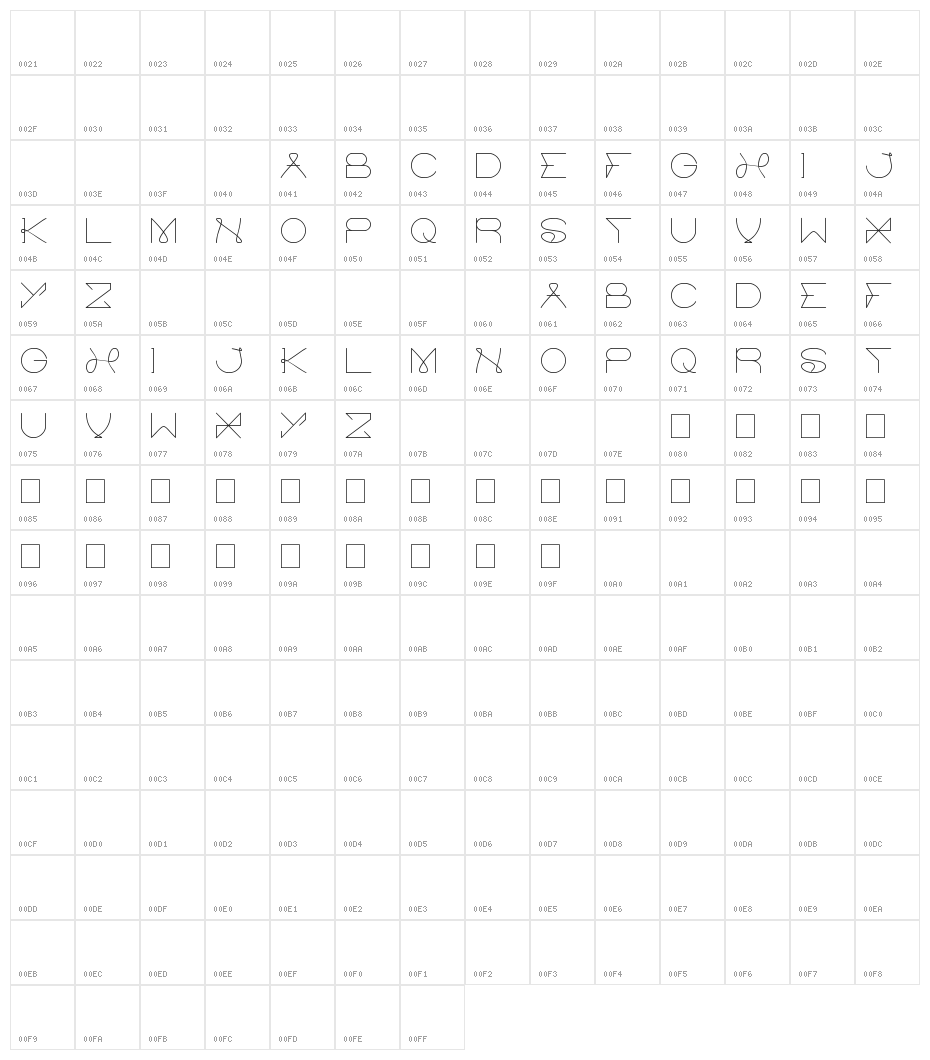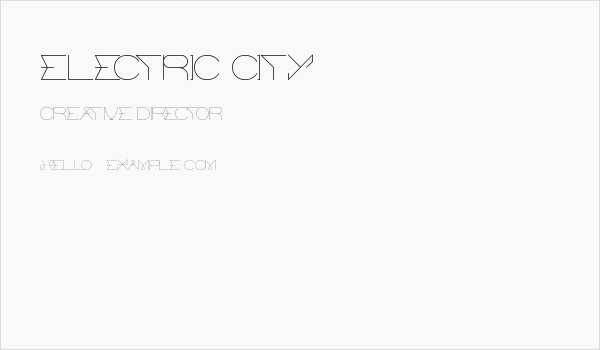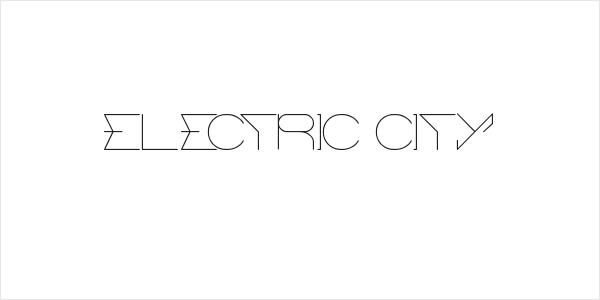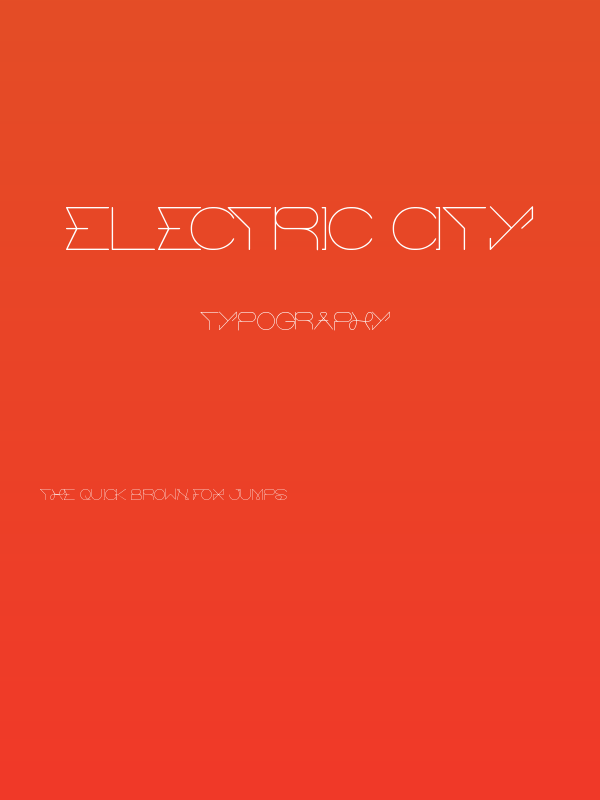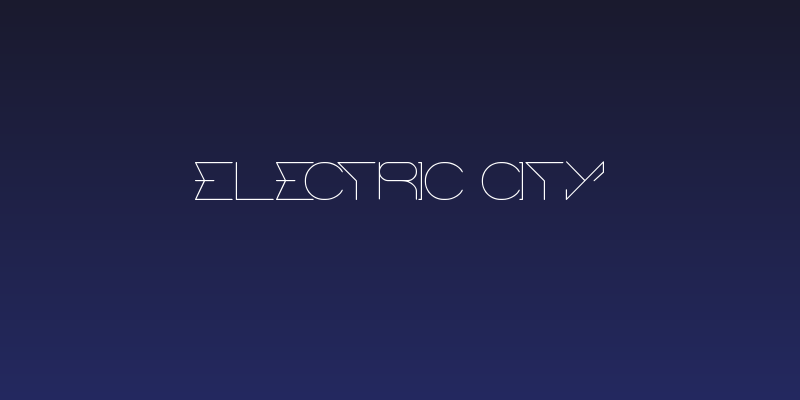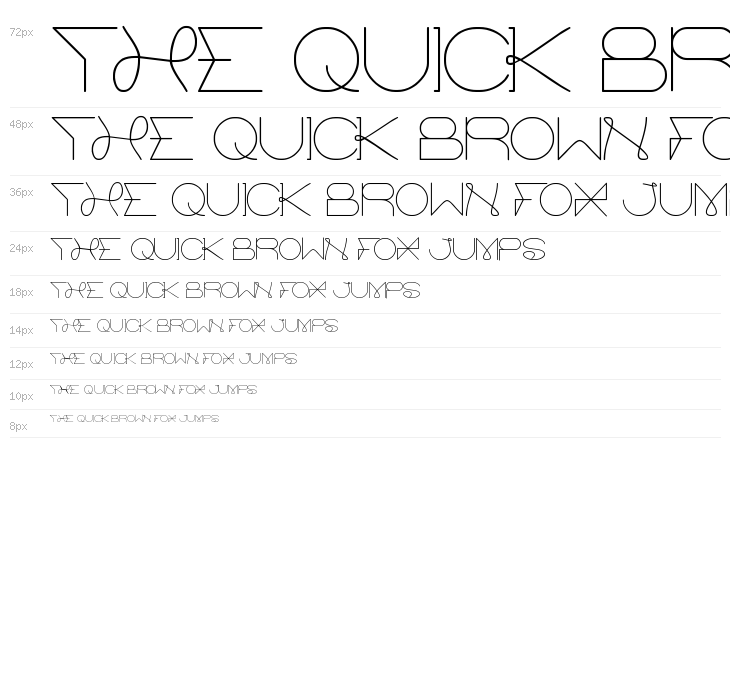
ELECTRIC CITY Font
ELECTRIC CITY Description
This font features a unique and futuristic design with geometric and abstract elements. Each character is crafted with a combination of straight lines and curves, creating a dynamic and electric feel. The uppercase letters exhibit a consistent height and width, while incorporating distinctive angles and loops that give the font a modern and avant-garde appearance. The overall structure is clean and minimalistic, yet the intricate details add a layer of complexity and intrigue. This font is ideal for projects that aim to convey innovation, technology, or a cutting-edge aesthetic.